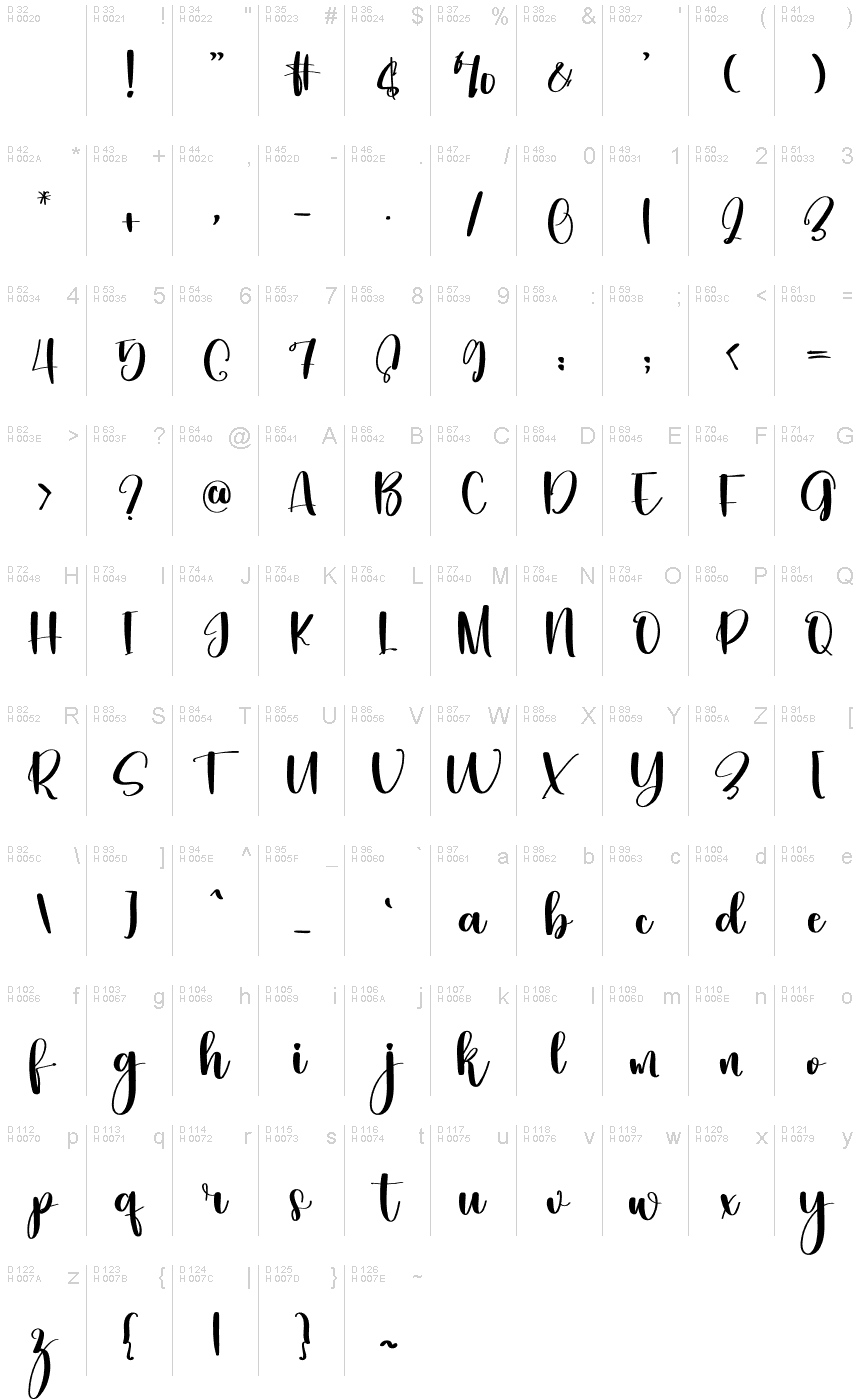
Farm
Farm, designed by Inermedia Studio, exudes a charming, handmade quality that immediately draws the eye. Its handwritten style offers a personal touch that bridges the gap between traditional craftsmanship and modern design. The font's fluid strokes and variable line weights suggest a casual elegance and an organic feel, reminiscent of artisanal market signage or bespoke branding.
The versatility of Farm lies in its aesthetic appeal; it's equally at home in creative project settings ranging from rustic-themed invitations to logo designs for boutique businesses. Its style speaks to those seeking a blend of warmth and authenticity in their visual messaging.
With its distinct character, Farm stands out as an excellent choice for projects aiming to convey intimacy and individuality. Whether it's used for product packaging or editorial layouts, this font holds the potential to infuse any creation with personality and a down-to-earth sophistication.